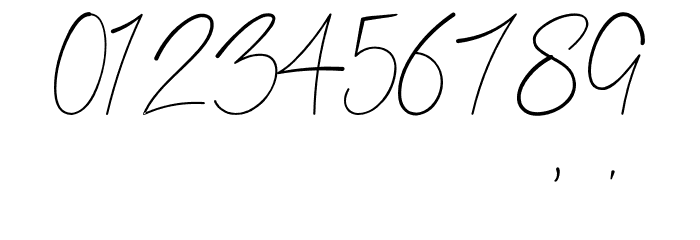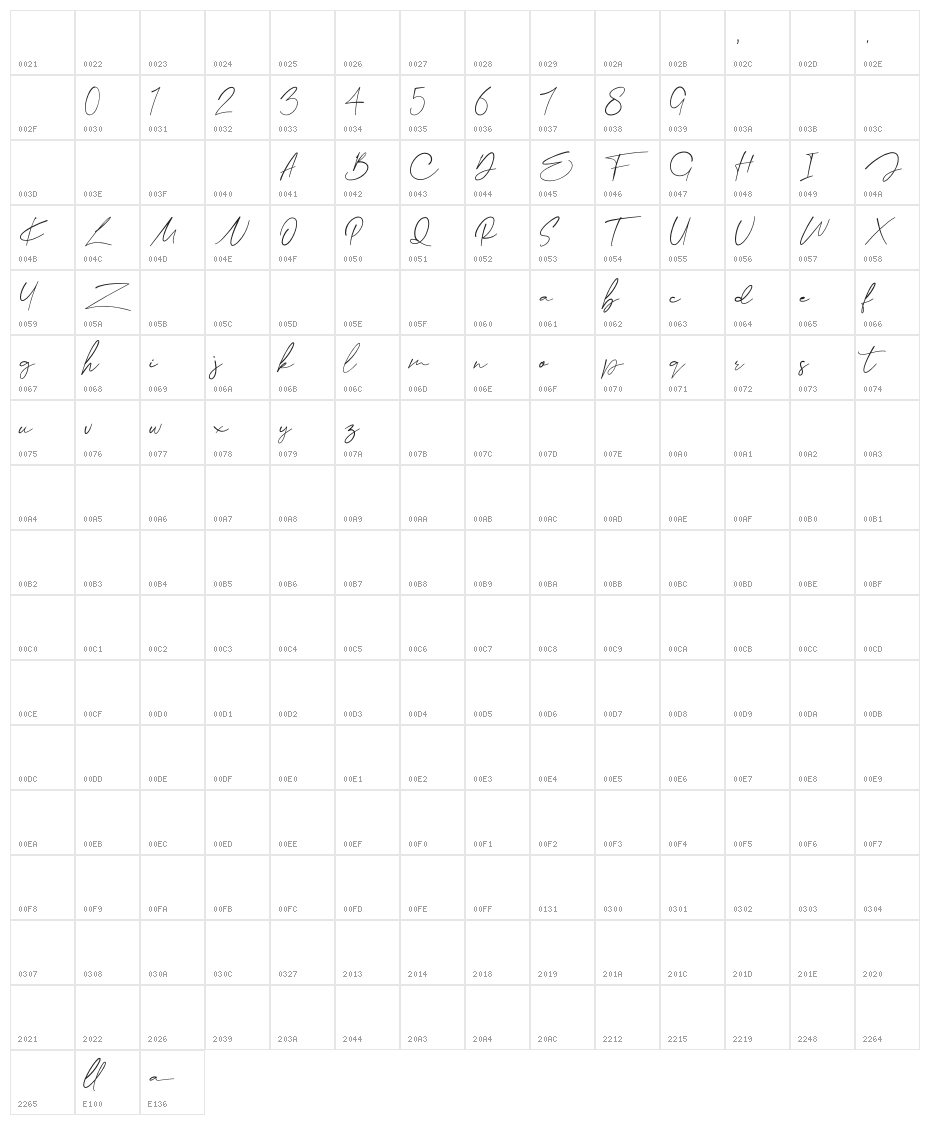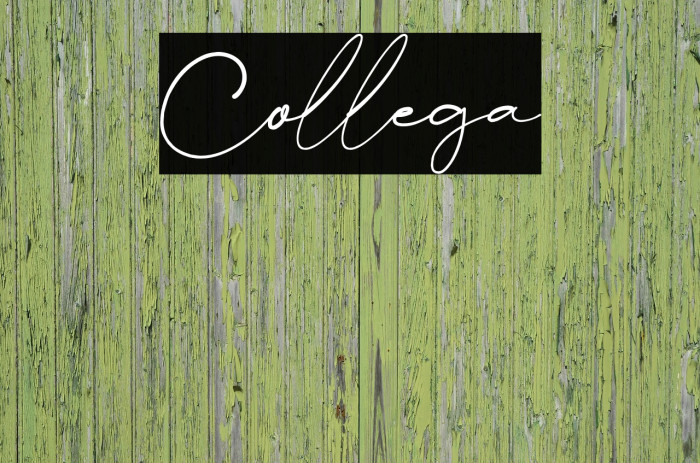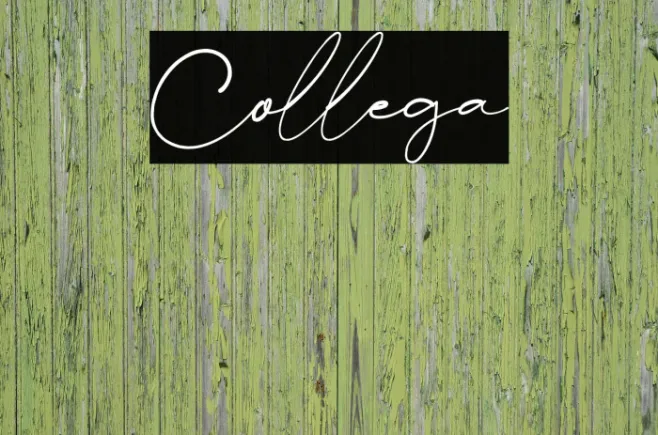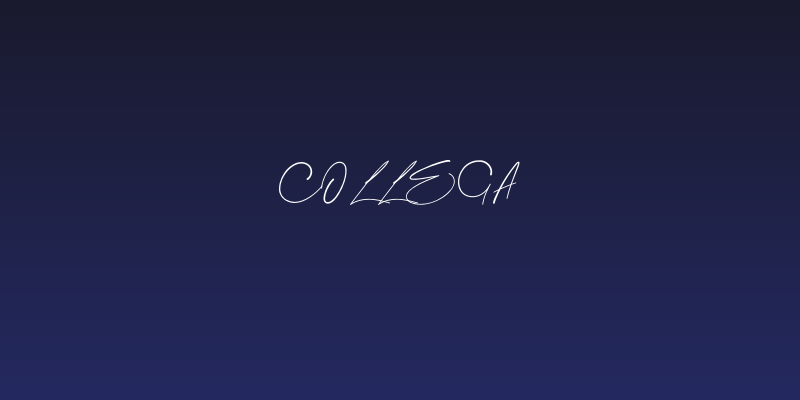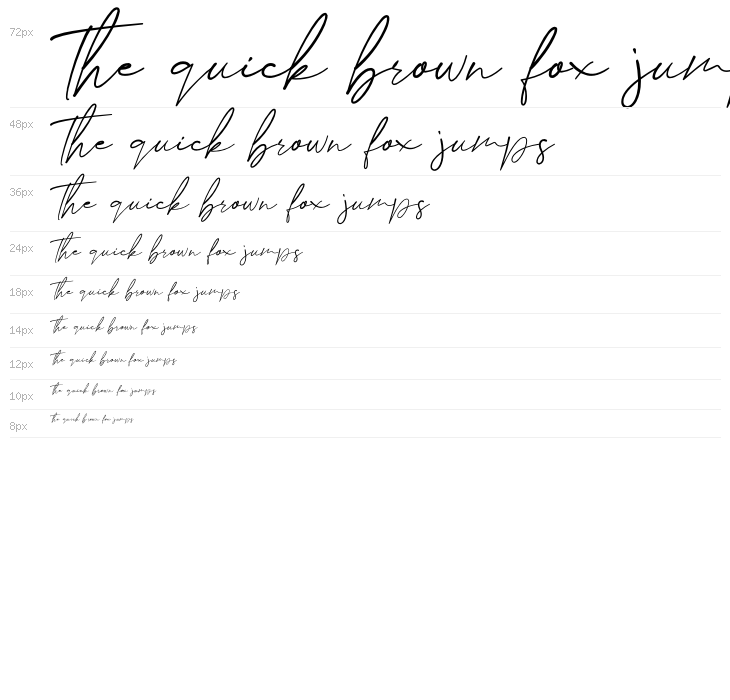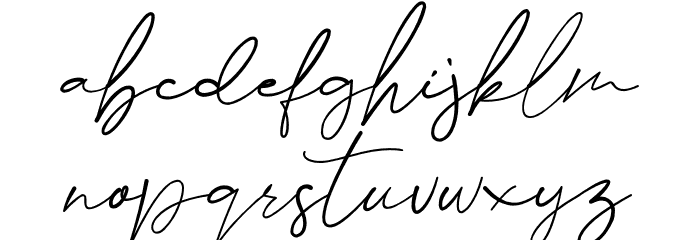
Collega Font
Collega Description
This font features an elegant, flowing script style with a modern touch. The letters are connected in a cursive manner, giving it a handwritten appearance. The strokes are smooth and fluid, with a slight variation in thickness that adds to its graceful look. The uppercase letters are tall and slightly slanted, while the lowercase letters maintain a consistent baseline, enhancing readability. The numerals are distinct and blend seamlessly with the overall style. This font is ideal for projects that require a personal, sophisticated touch.
| Proposed Projects | Ideal for wedding invitations, greeting cards, personal branding, and elegant logo designs. |